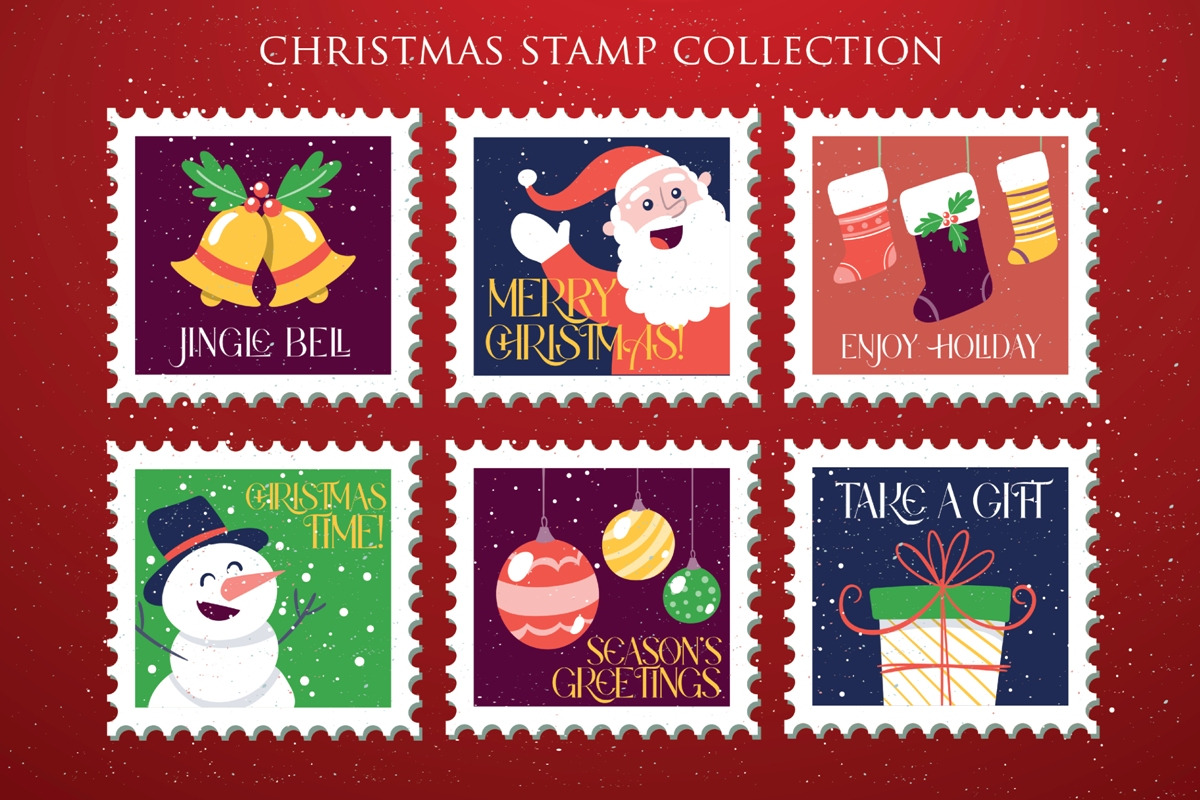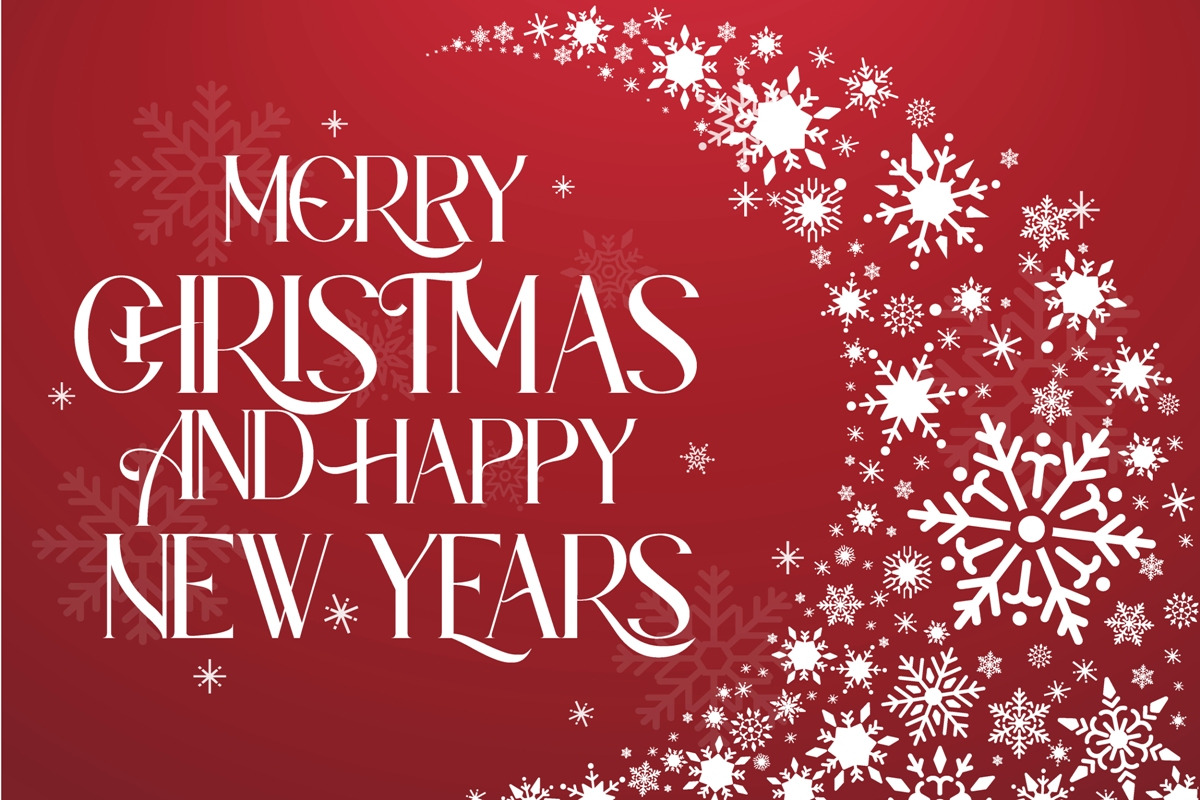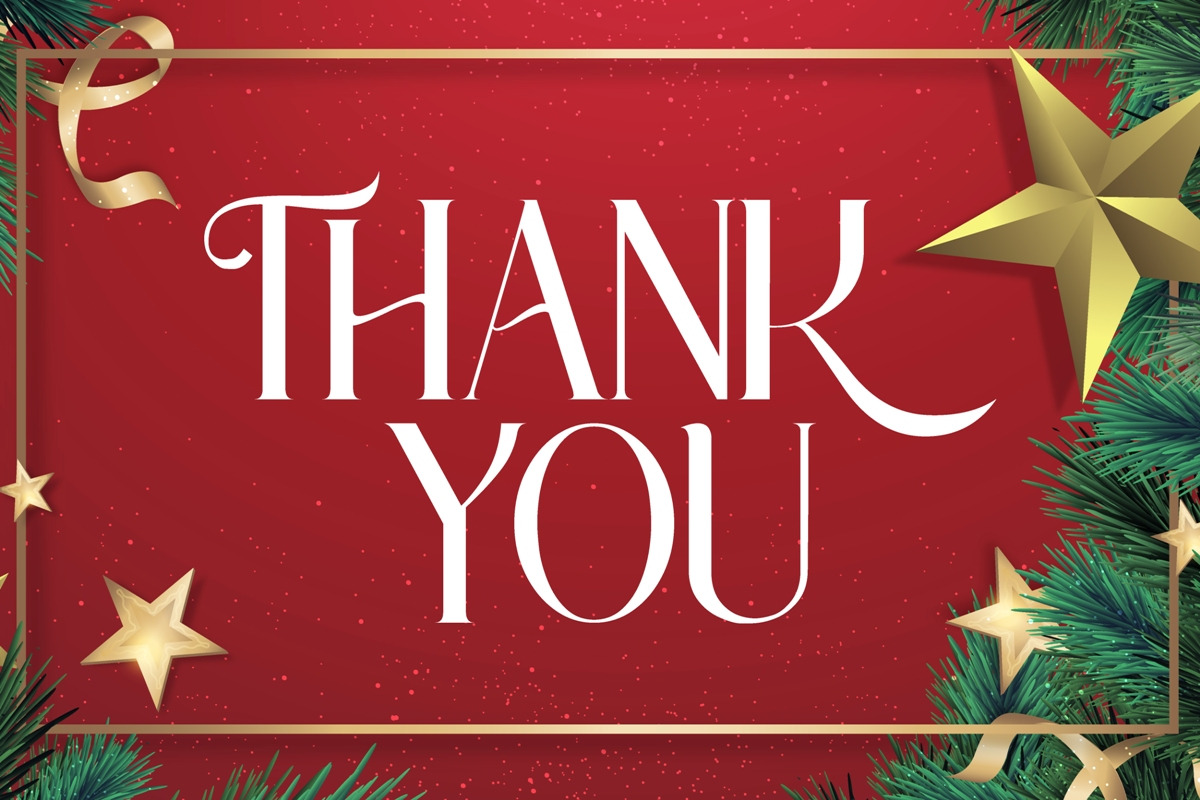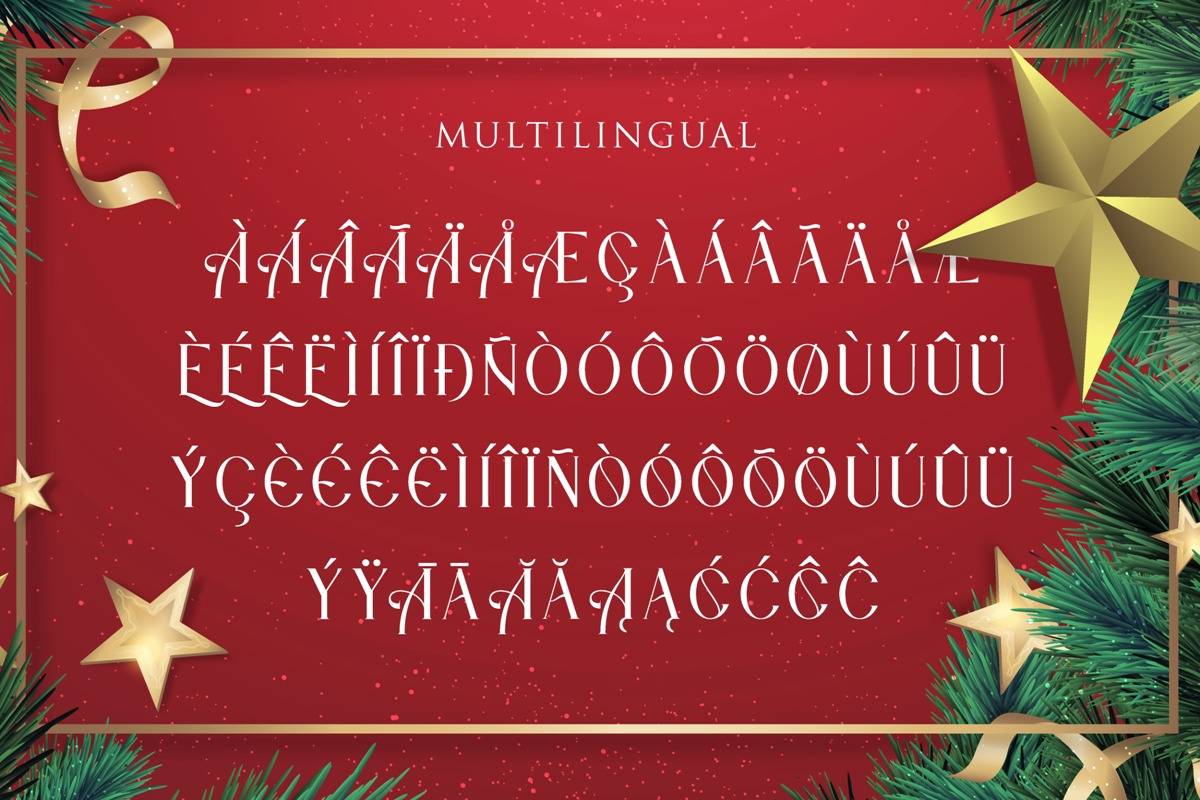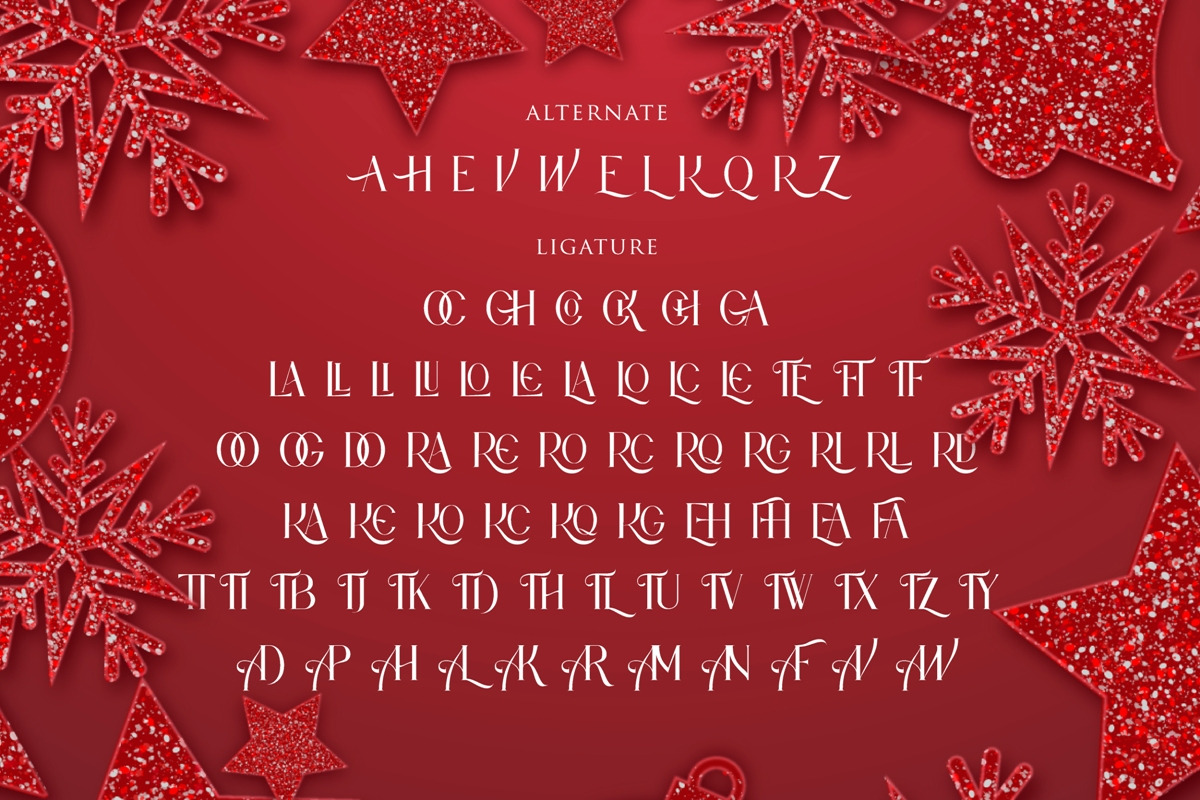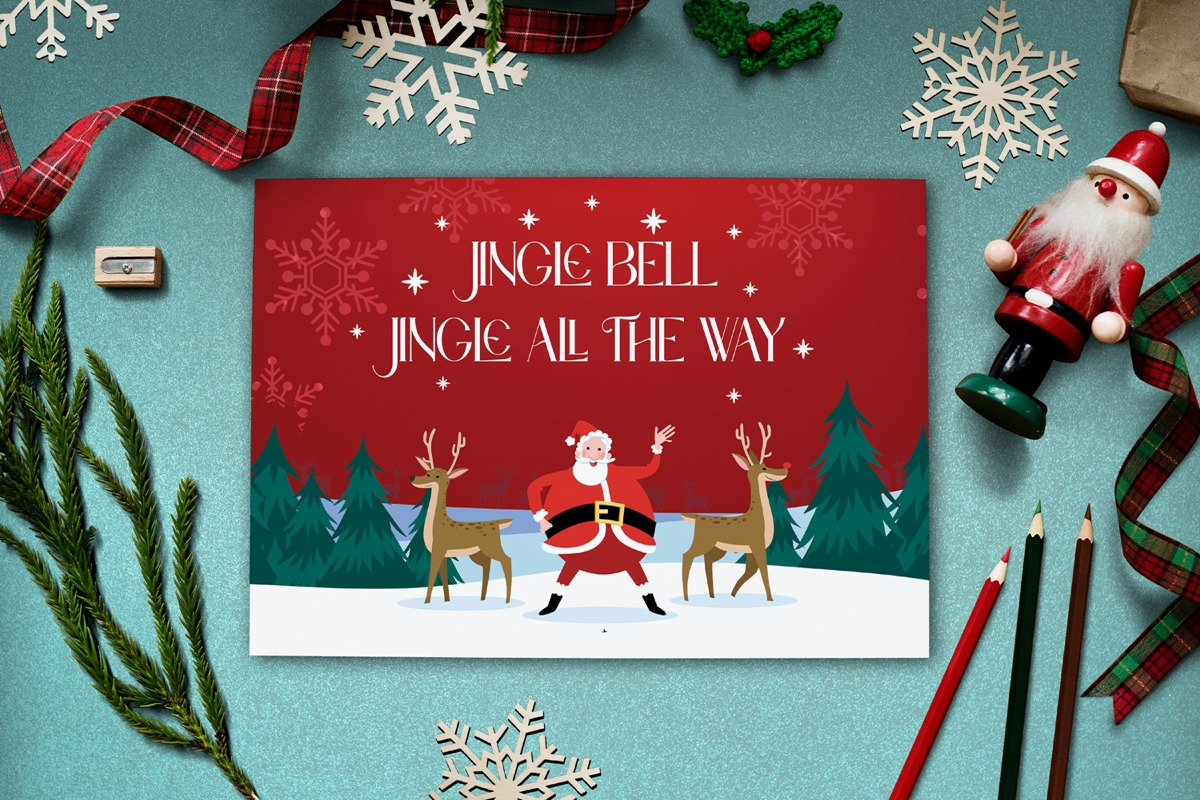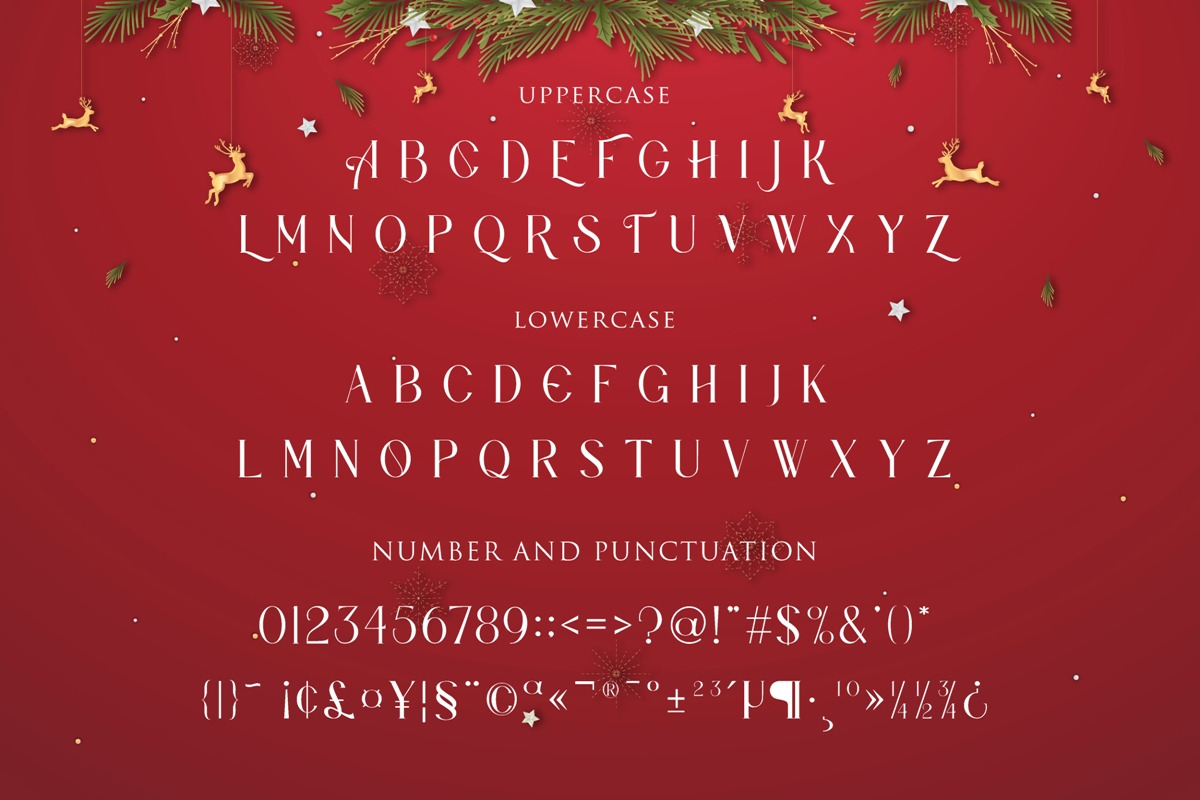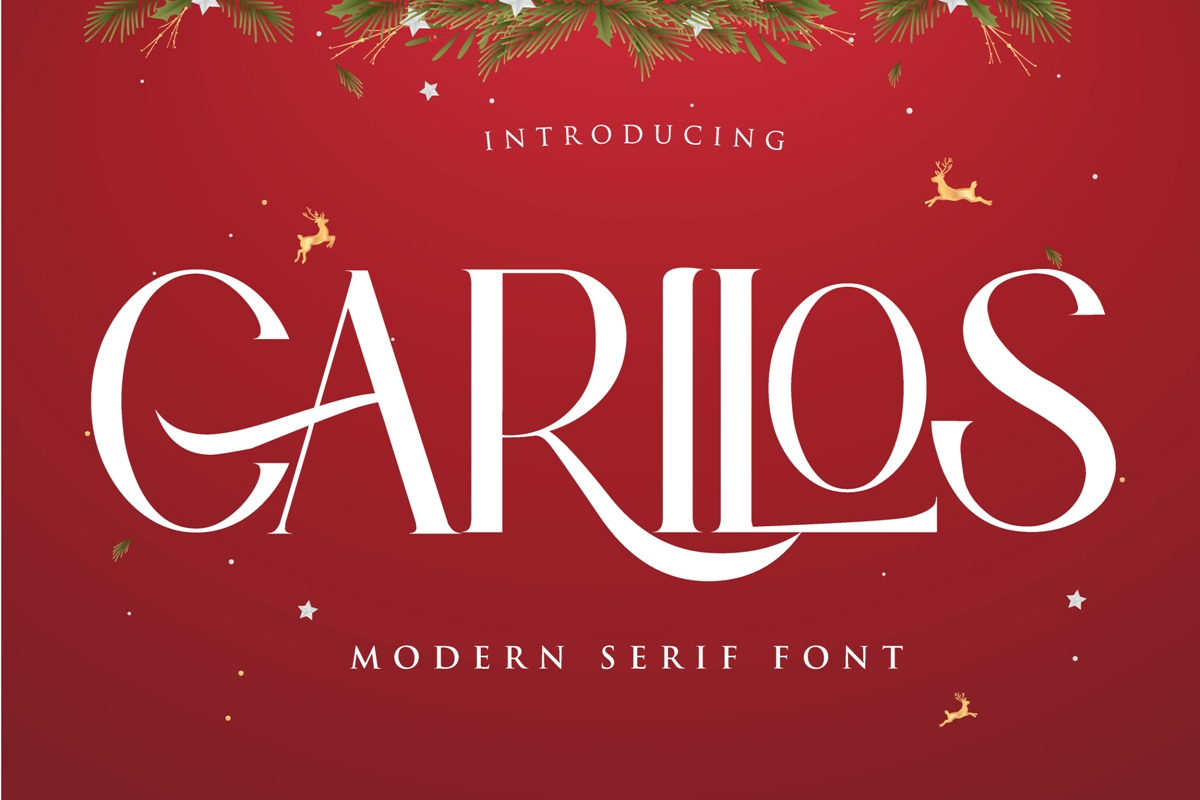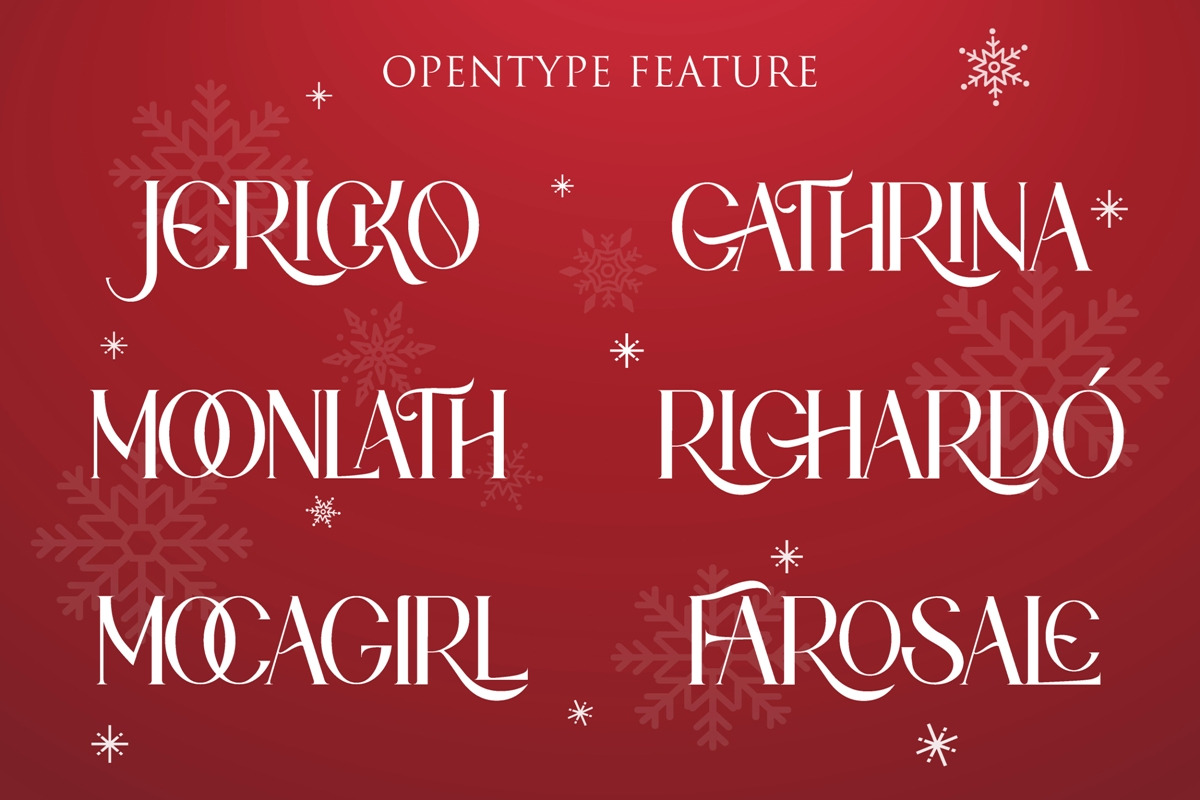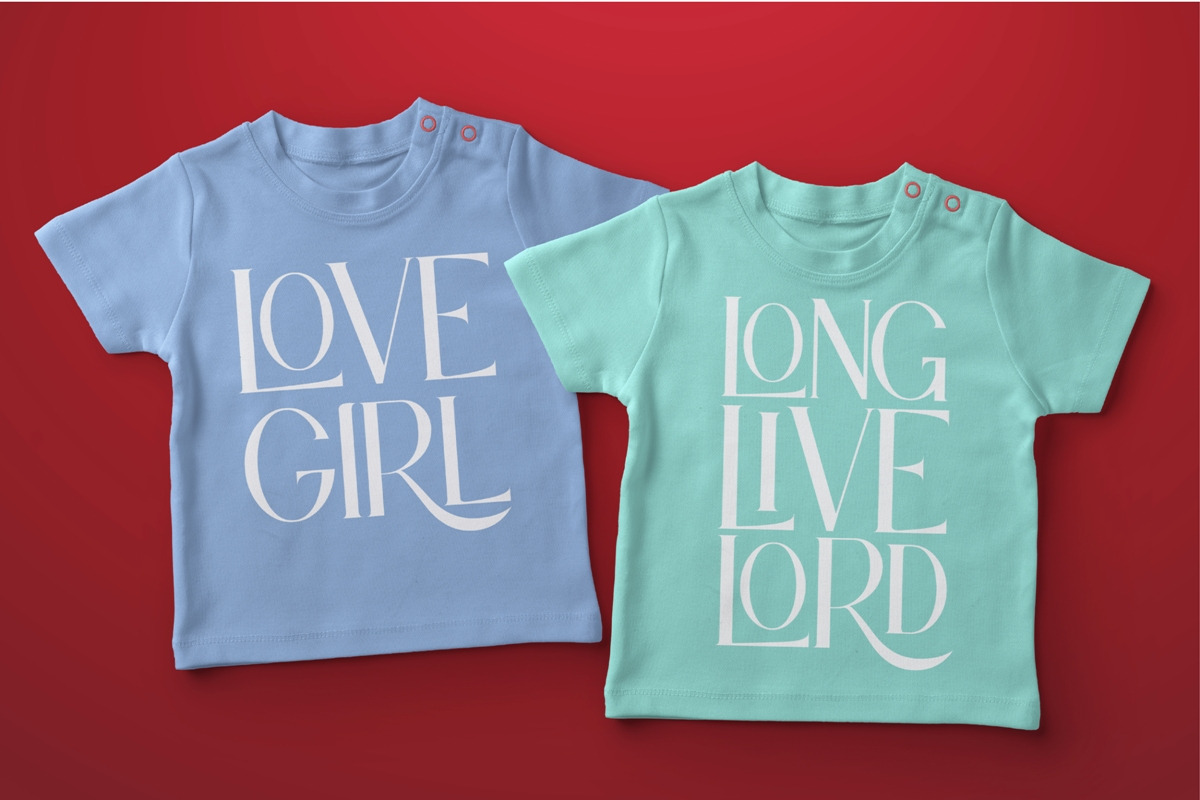
Carilos | Modern Serif Font
Carilos - Elegant And Luxuries Typeface will work perfectly for fashion, e-commerce brands, trend blogs, wedding boutiques or any business that wants to appear upscale and chic.
Carilos - Elegant And Luxuries Typeface also Suitable for Logo, greeting cards, quotes, posters, branding, name card, stationary, design title, blog header, art quote, typography, art, modern envelope lettering or book design, happening style like handdrawn design or watercolor design theme, craft design, any DIY project, book title, or any purpose to make your art/design project look pretty and trendy.
Numerals & Punctuations (OpenType Standard)
Accents/Multilingual characters
Open Feature ( Liga,Dlig,Salt,Sups,Ordn,Alt)